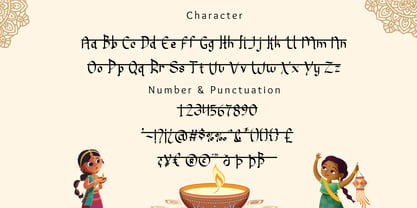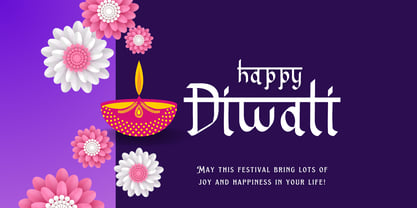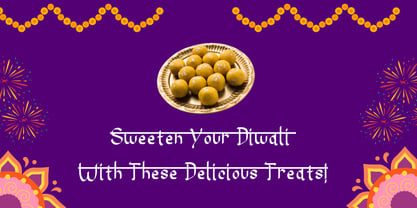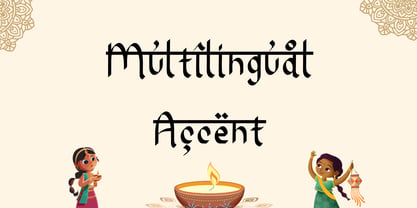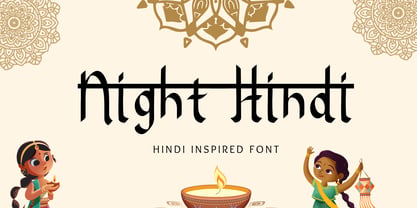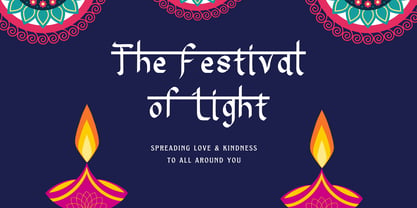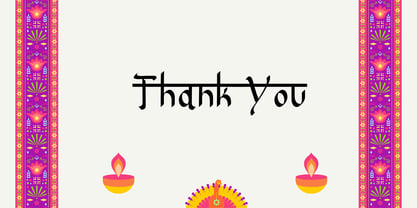
Night Hindi
La familia tipográfica Night Hindi fue diseñada por Fadli Ramadhan Iskandar y publicada por Attype Studio. Night Hindi contiene 1 estilos. Más información sobre esta familia
Introducing Night Hindi
A beautifully crafted font inspired by the elegance and flow of the Hindi language.
Night Hindi captures the essence of traditional Hindi script, making it a perfect choice for projects that embrace Hindi culture and style.
Whether you're designing for festive occasions, cultural events, or holiday celebrations, this font will add an authentic touch of charm and grace.
Elevate your designs with the cultural richness of Night Hindi.
Elevate your designs with the cultural richness of Callen Night Hindi.
Features :
- Night Hindi
- Multilingual, US Roman, Latin 1 Support